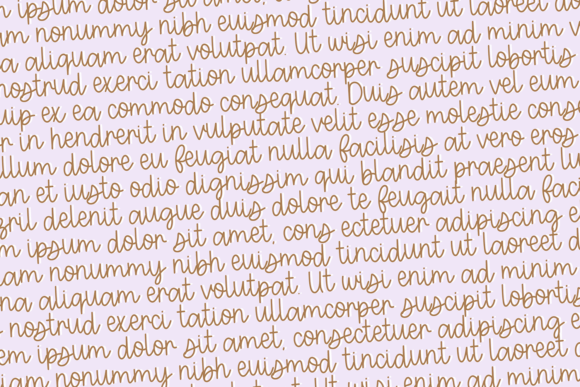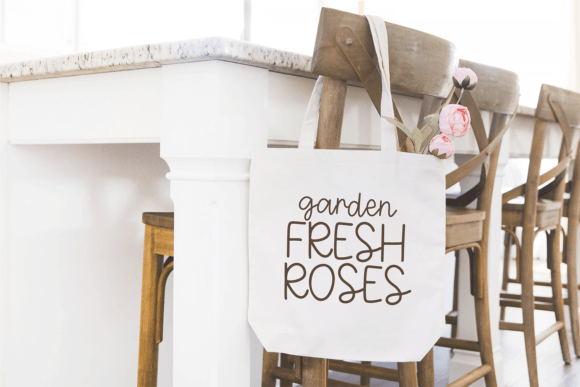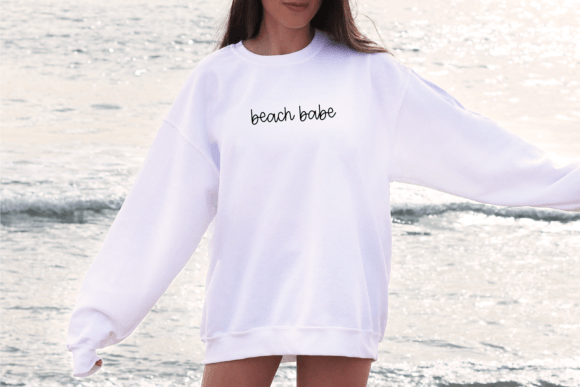
Unleashing Your Beachy Vibes: The Allure of Beachy Dreams Font
There’s something magical about brainstorming a new project on a sunny day, surrounded by seashells and ocean views. The creative juices start flowing, and you can almost taste the inspiration. For many of us, the beach is a place where ideas come alive, and the sound of waves crashing against the shore is the perfect accompaniment to a burst of creativity.
That’s where the Beachy Dreams Font comes in – a charming script cursive handwriting font designed to capture the essence of your beachy dreams. Perfect for social media, digital planning, and branding, this font is a must-have for designers looking to add a touch of whimsy and personality to their work. With its upper and lowercase glyphs, numbers, and basic punctuation marks, the Beachy Dreams Font is a versatile tool that’s ready to elevate your creative projects.
- Unique Characteristics: The Beachy Dreams Font features a hand-drawn, cursive style with a relaxed, beach-inspired feel, making it ideal for coastal-themed designs and projects.
Beachy Dreams Font Review
Overall, I think Beachy Dreams Font is a fun and quirky addition to any design project. ✨ The playful, handwritten feel of this font makes it perfect for creating a lighthearted and carefree vibe.
- ✨ Unique and creative feel that sets it apart from more traditional fonts.
- ✨ Great for use in designs that require a touch of whimsy and personality.
- ✨ Comes in a range of styles and weights, allowing for flexibility and customization.
- ⚠️ May not be suitable for formal or professional designs, due to its playful and informal feel.
- ⚠️ Can be a bit hard to read in smaller sizes, due to the irregular letterforms and connections.
- ⚠️ Limited language support, which may limit its use in designs requiring multiple languages.
Overall, I think Beachy Dreams Font is a great choice for designers looking to add some personality to their projects. While it may not be suitable for every design scenario, it’s a fun and creative option that can help bring a project to life.
Use Beachy Dreams Font for designs that evoke a sense of summer, beach, or tropical vibes.
Pair it with bright and pastel colors to create a cohesive look.
Beach-themed party decorations and invitations
Summer-themed social media graphics and ads